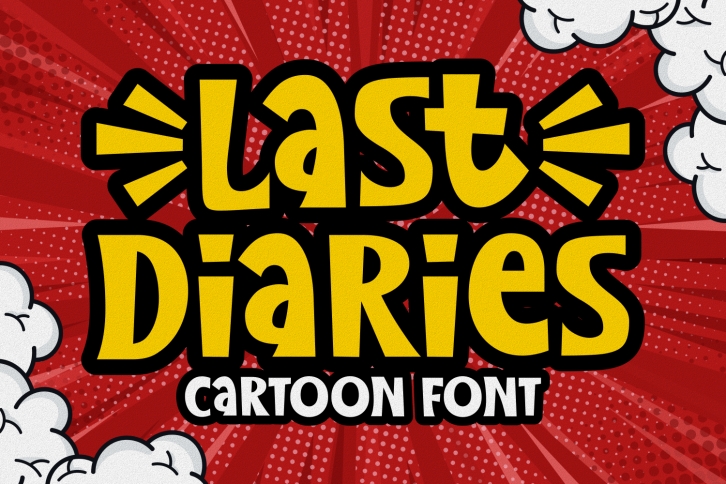
Last Diaries is a cartoon-like, easy-to-read and thick lettered display font. Whether you’re using it for crafts, digital design, presentations, or making greeting cards, this font has the potential to become your favorite go-to font, no matter the occasion!